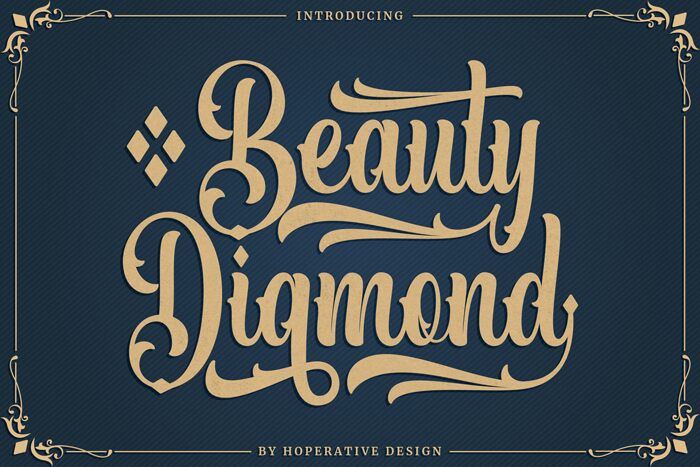
Beauty Diamond, designed by Hoperative, is a captivating calligraphy font that exudes elegance and sophistication. With its condensed width, this font is perfect for projects that demand a touch of refined glamour. Whether you're designing luxury wedding invitations, high-end fashion magazines, or upscale branding materials, Beauty Diamond will effortlessly elevate your creations to new heights. Its graceful curves and intricate details make it an exquisite choice for any project that seeks to make a lasting impression. Let Beauty Diamond be the crown jewel in your design arsenal and watch your creations dazzle with timeless beauty.
Beauty Diamond